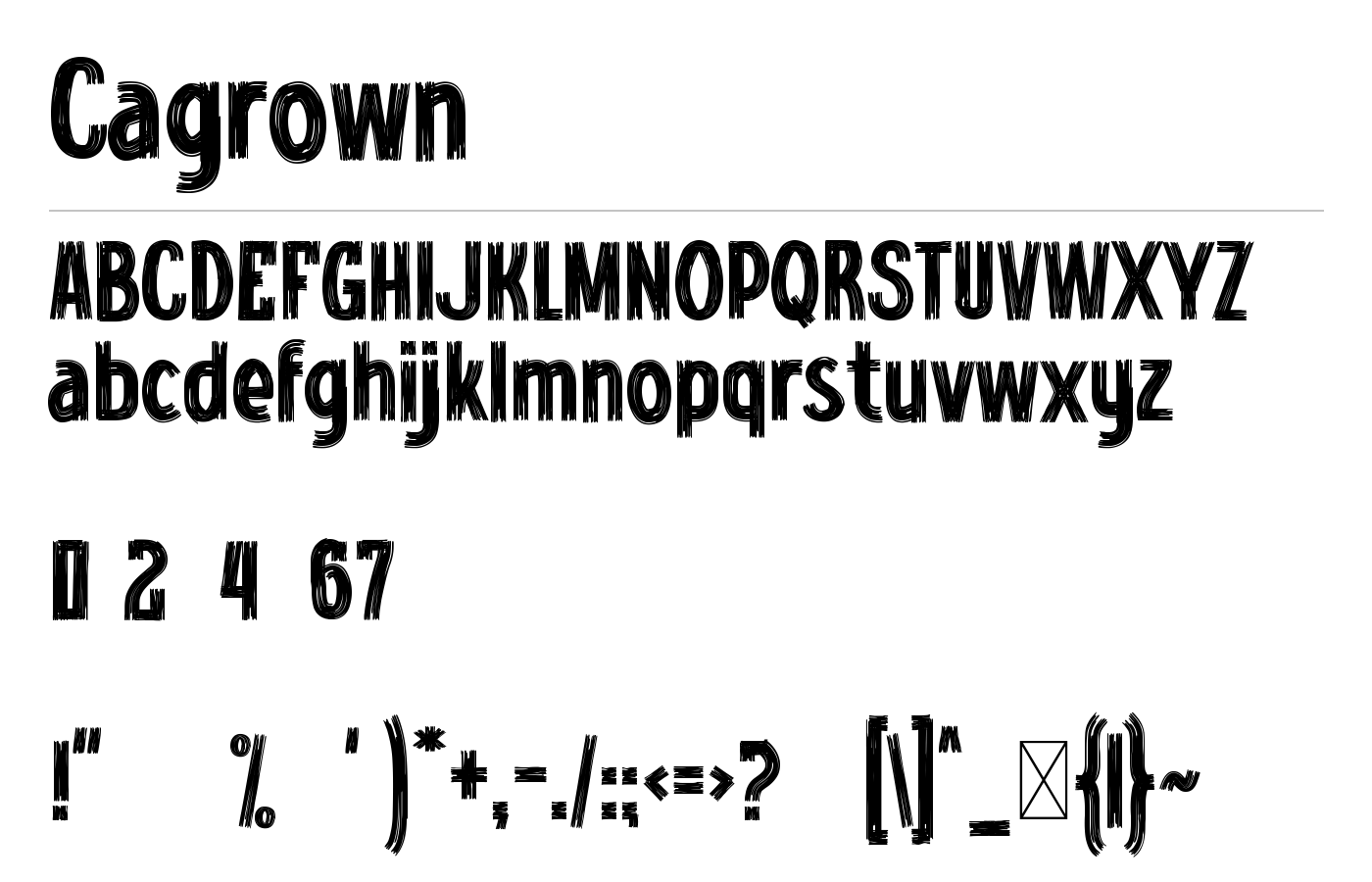
Cagrown is a bold, condensed sans serif font with a rough, textured stroke that gives it a handcrafted, sketch-like appearance. Its tall x-height and uneven edges create a dynamic, edgy feel, making it ideal for attention-grabbing headlines, posters, and creative branding that seek a playful yet strong personality. This font works best in designs that want to convey energy and originality with a distinctive, artistic touch.
Cagrown Font
About Cagrown Font